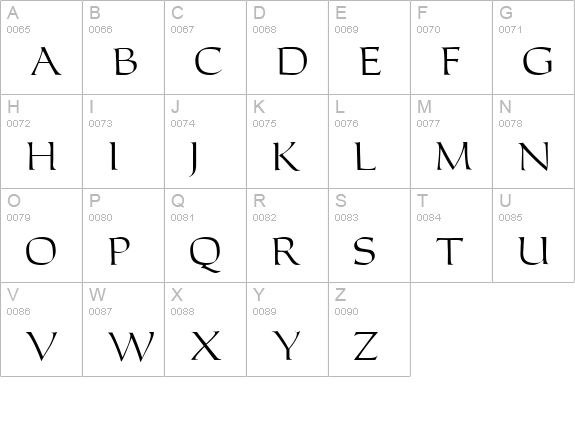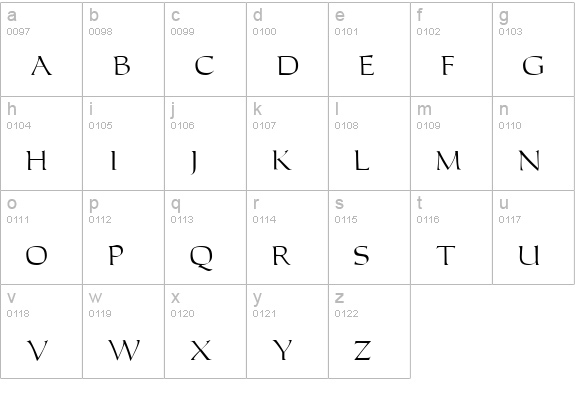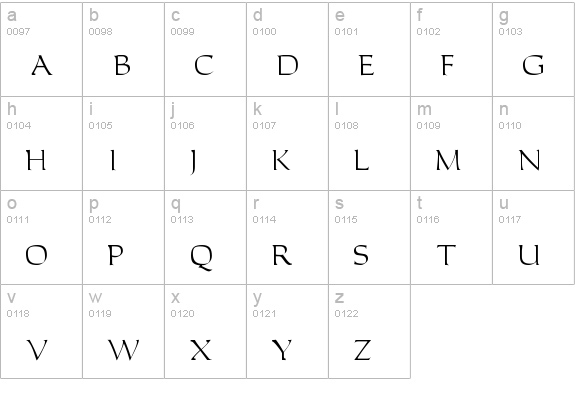
C653-Deco-Regular is the standard, neutral variant in the C653 typeface family \xE2\x80\x94 well suited to general body text, paragraphs, and standard typographic work.
C653-Deco-Regular is a stylish and elegant font that exudes a timeless charm with its beautiful Art Deco-inspired design. This font is perfect for adding a touch of sophistication to your projects, whether it's for branding, invitations, or editorial design. The clean lines and geometric shapes of C653-Deco-Regular make it versatile and suitable for a wide range of applications. The best part about C653-Deco-Regular is that it is completely free to download at FontsMarket.com. This means you can easily access this stunning font and enhance your creative projects without any cost. Don't miss out on this opportunity to elevate your designs with the sleek and modern look of C653-Deco-Regular. Download it today and start creating impactful and eye-catching visuals that will impress your audience.